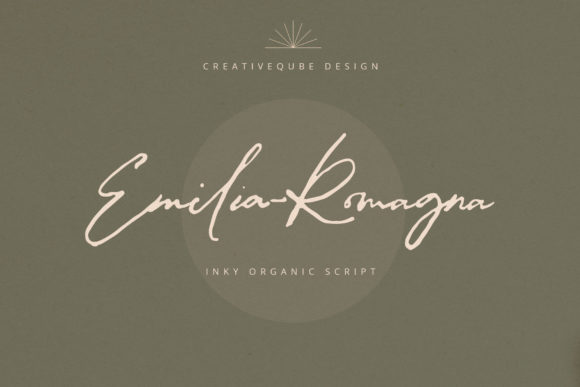
Step into the world of elegance and grace with Emilia-Romagna, a script font that embodies the essence of sophistication and artistry. Its delicate strokes and flowing curves evoke a sense of timeless beauty, capturing the essence of handwritten calligraphy with a modern twist.
Crafted with precision and attention to detail, Emilia-Romagna is the perfect choice for designers seeking to create captivating designs that exude personality. Its versatility makes it suitable for a wide range of projects, from logos and branding to t-shirt printing and creative products. Whether you're a seasoned designer or just starting out, Emilia-Romagna is the perfect font to elevate your creative projects.
Imagine the impact your designs will have when adorned with the exquisite swirls and flourishes of Emilia-Romagna. Your logos will radiate an air of elegance, your t-shirts will become statements of style, and your creative products will captivate audiences with their refined aesthetic.
With Emilia-Romagna, the possibilities are endless. Dive into a world of endless creativity and experience the joy of crafting designs that truly resonate with your audience. Let your imagination soar and witness the transformative power of this extraordinary font.
Unlock the full potential of Emilia-Romagna today and embark on a journey of artistic expression. Its PUA encoding ensures effortless access to an array of glyphs and swashes, empowering you to add intricate details and flourishes to your designs with ease.